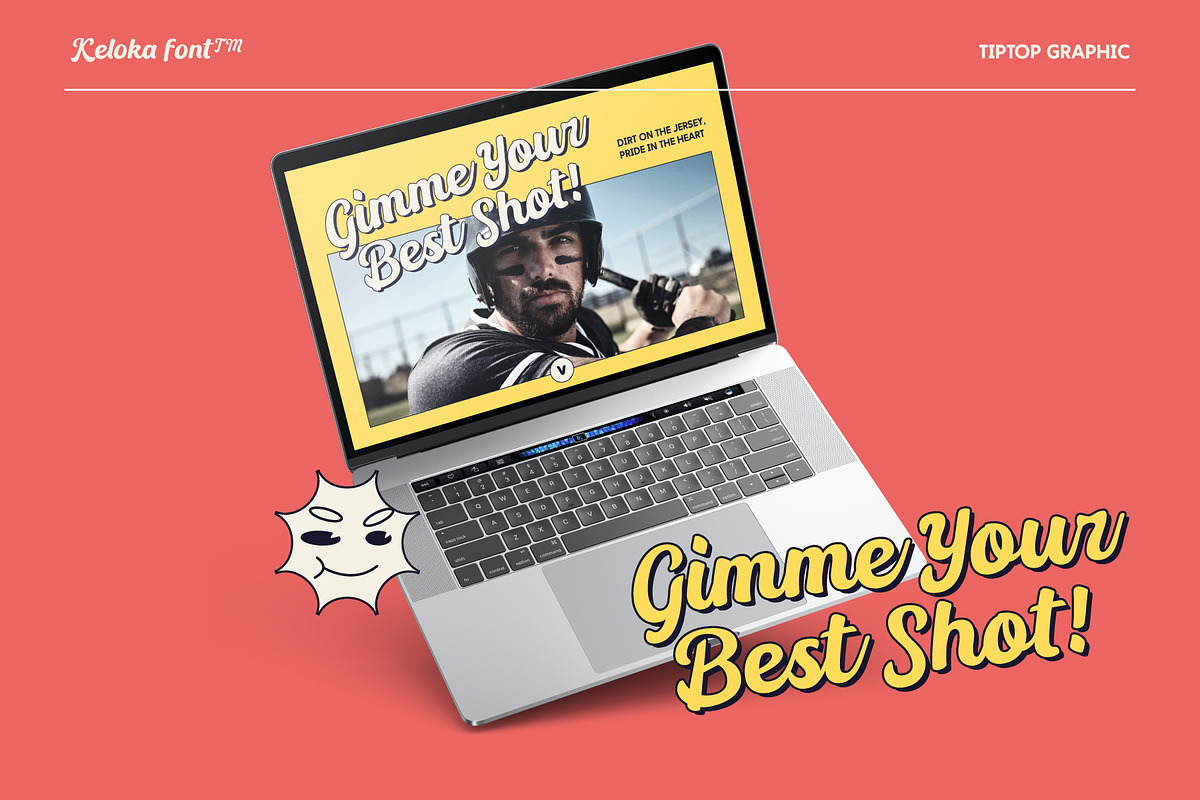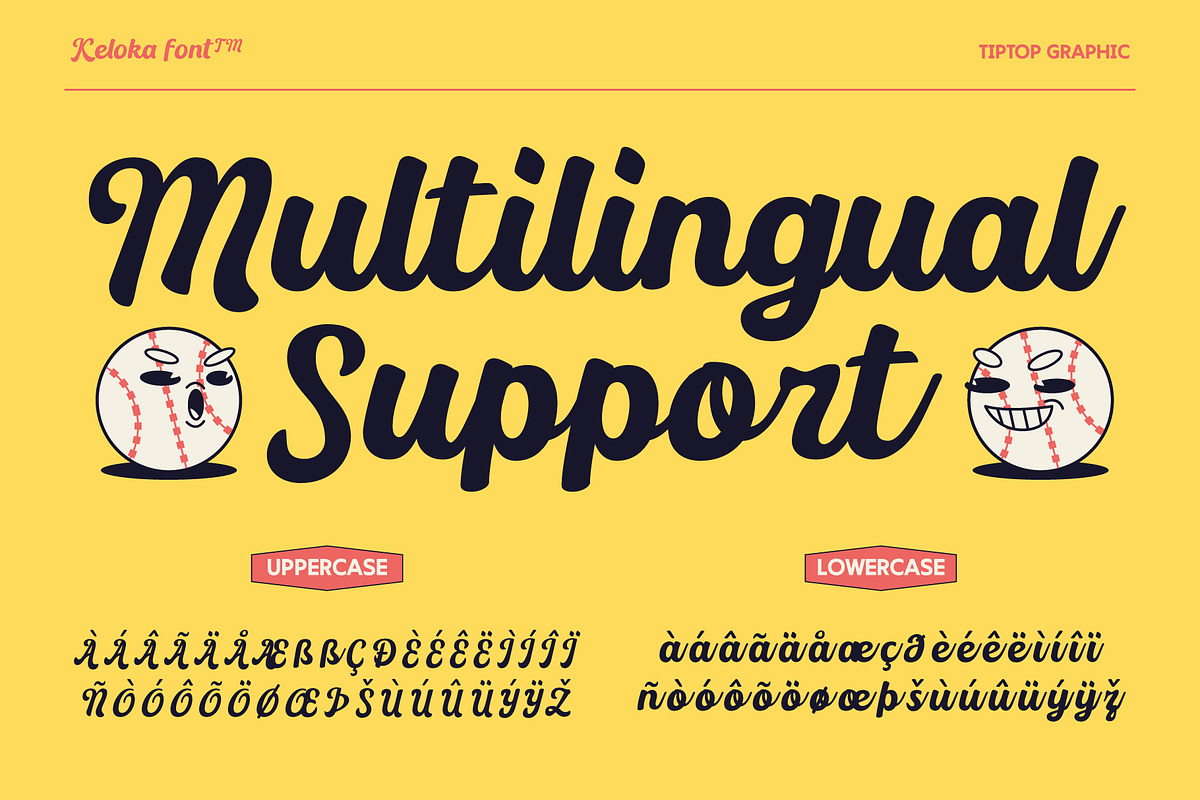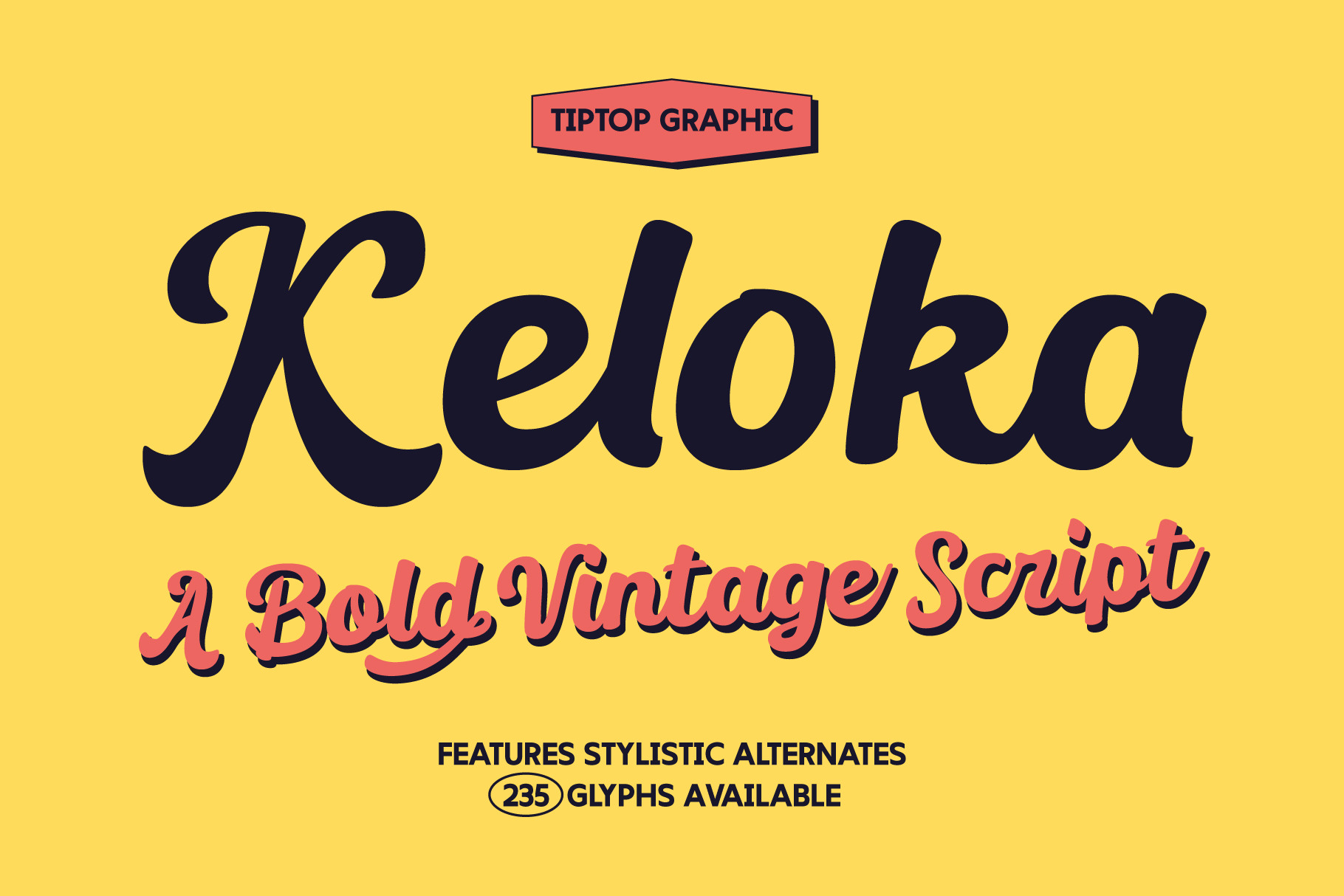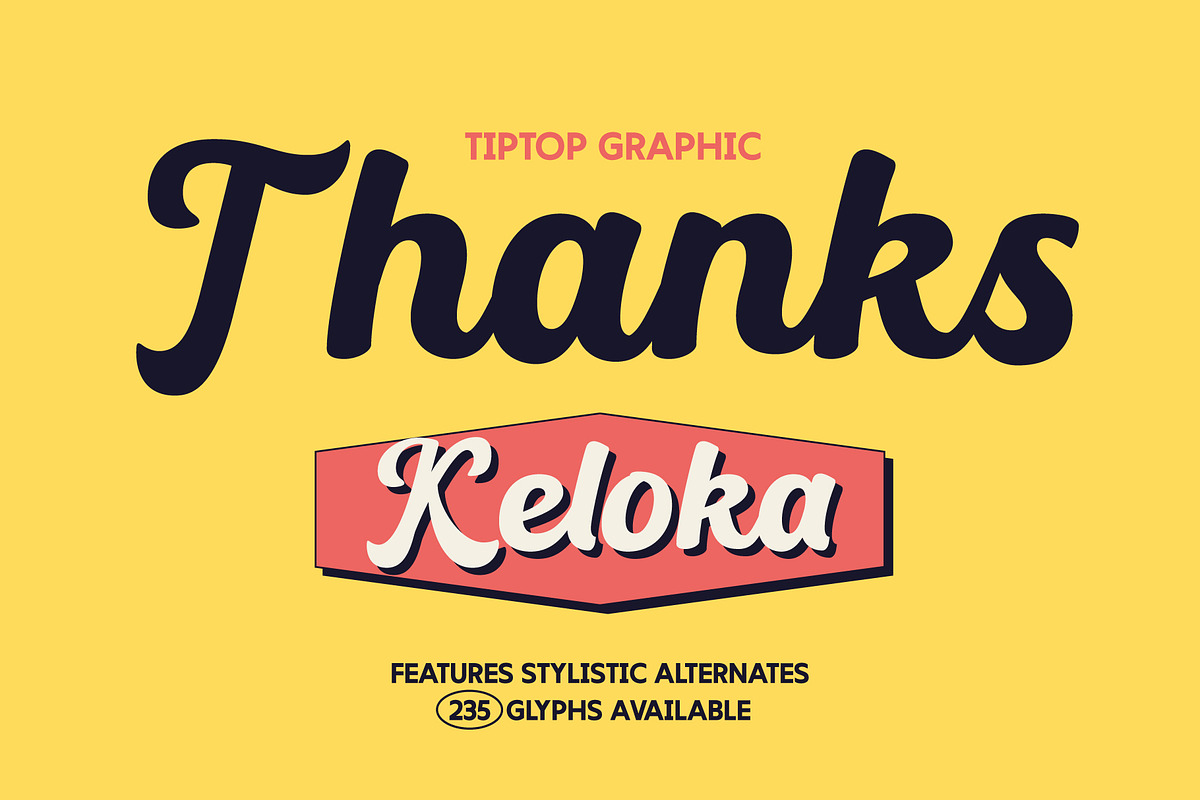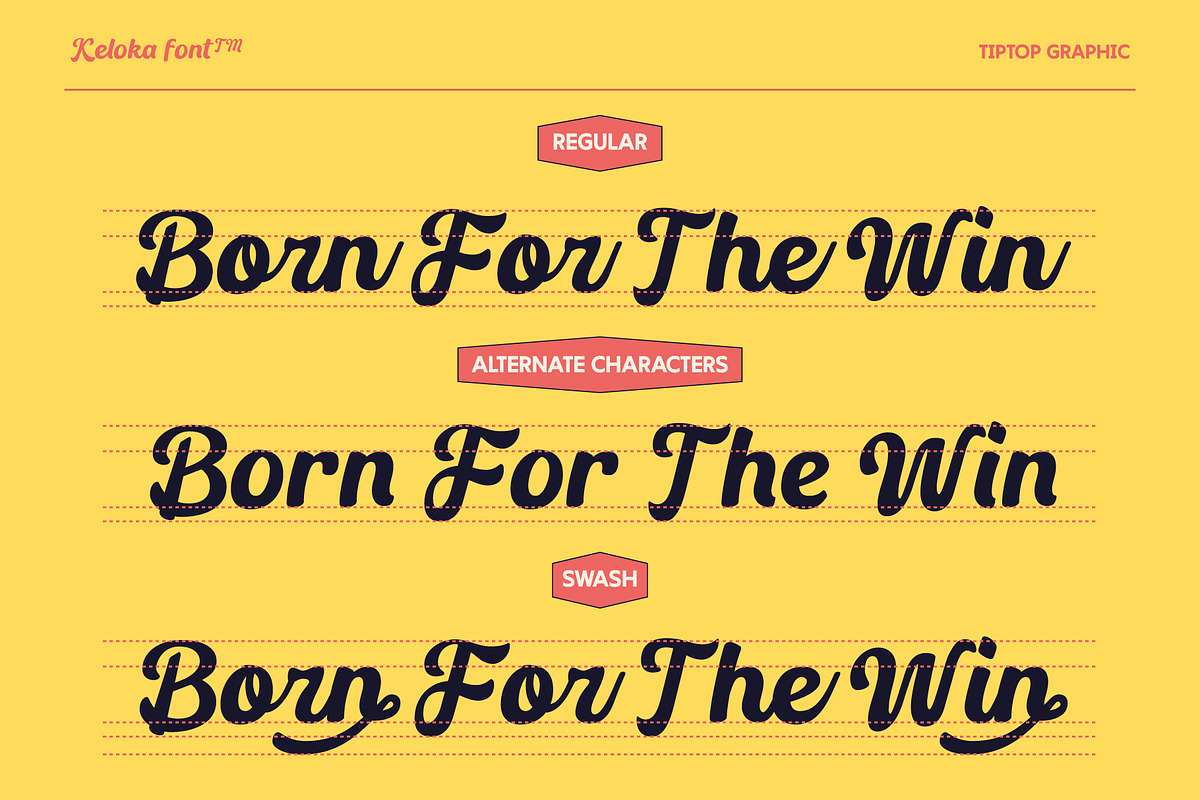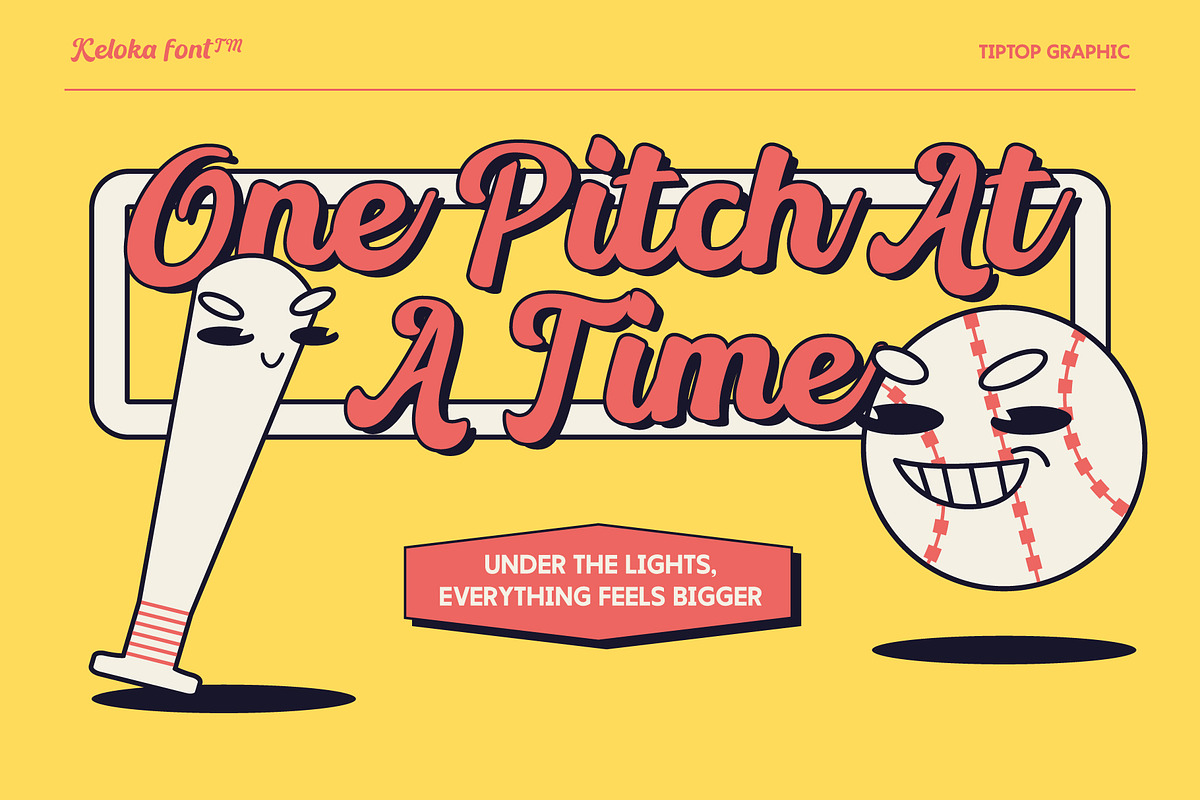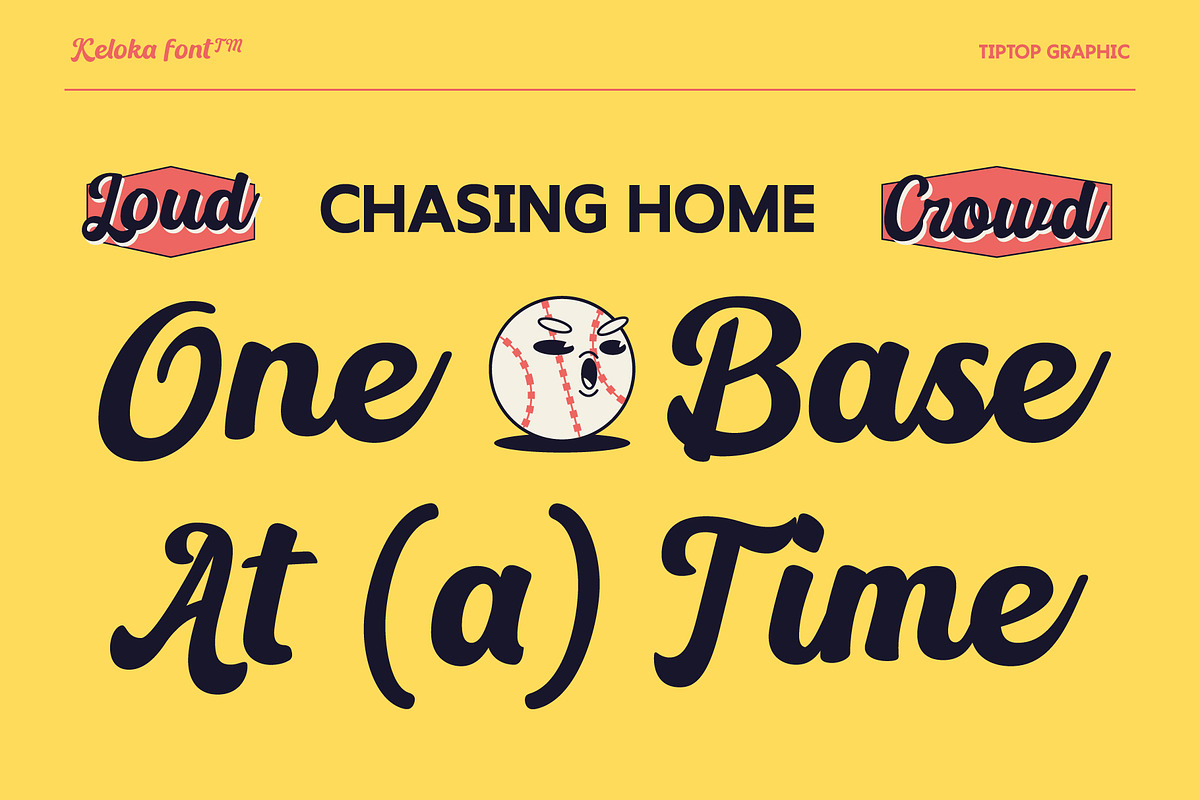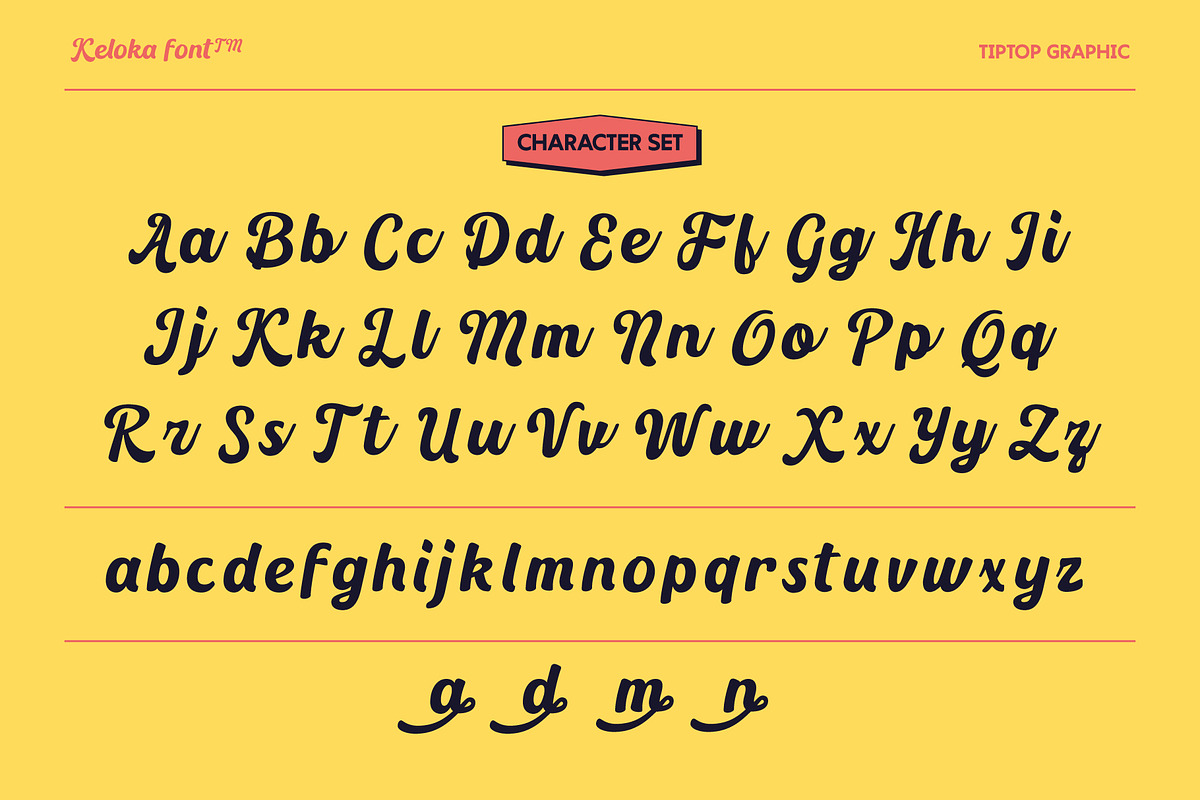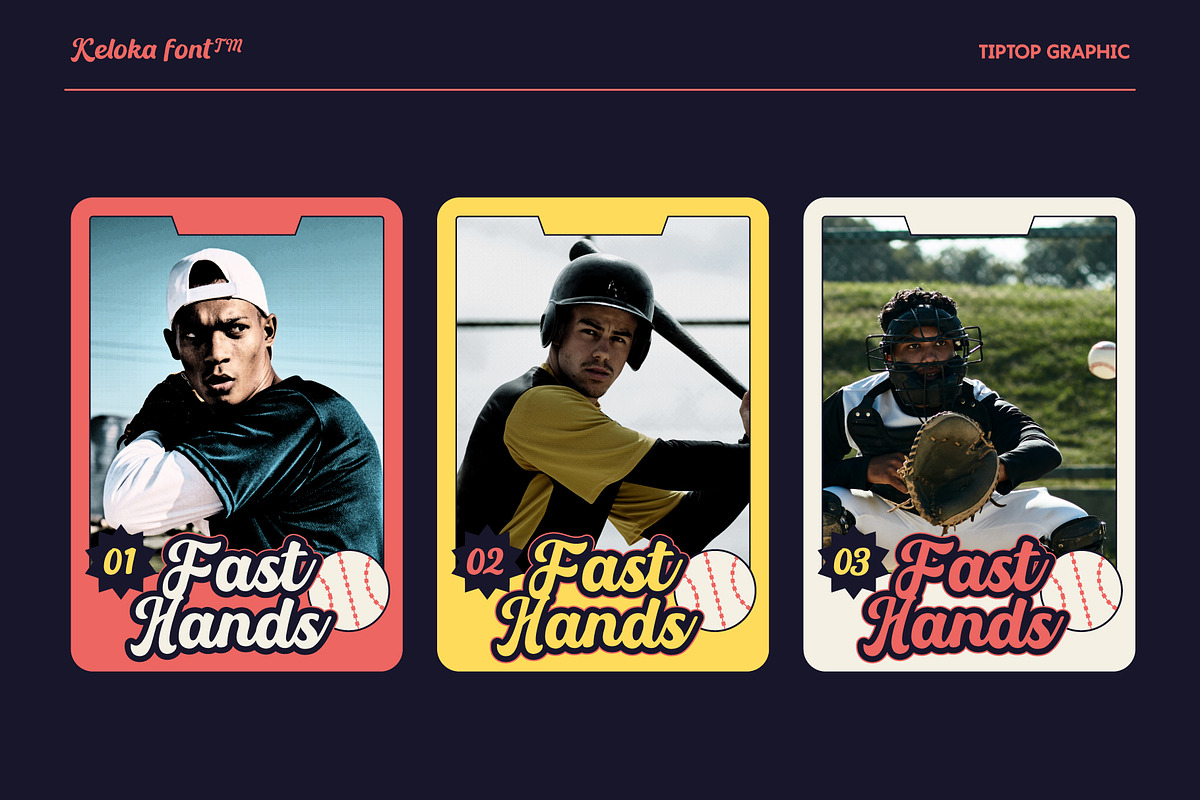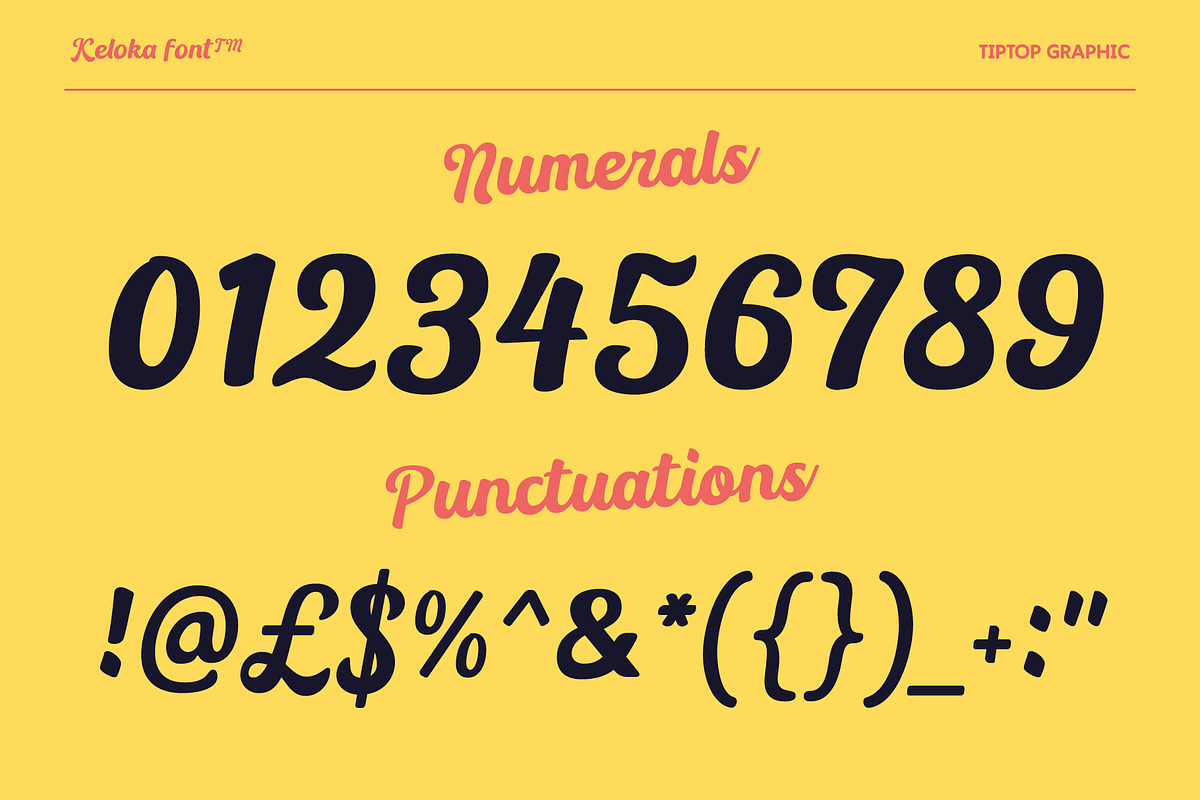
Keloka – Bold Vintage Script Font
Keloka is a bold vintage script font that effortlessly combines a casual vibe with a touch of retro charm, perfect for giving your designs a nostalgic yet fresh feel. Inspired by classic hand-lettered signs and sporty script logos, Keloka stands out with its smooth curves and dynamic strokes, making it ideal for branding, apparel, or any project that needs a standout Sporty Script with a laid-back attitude. Bring a timeless, energetic flair to your work with Keloka’s bold character and vintage style.
Keloka – Bold Vintage Script Font features:
- Punctuation & Numbers